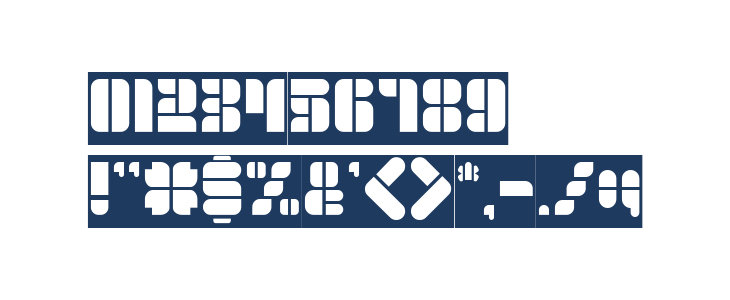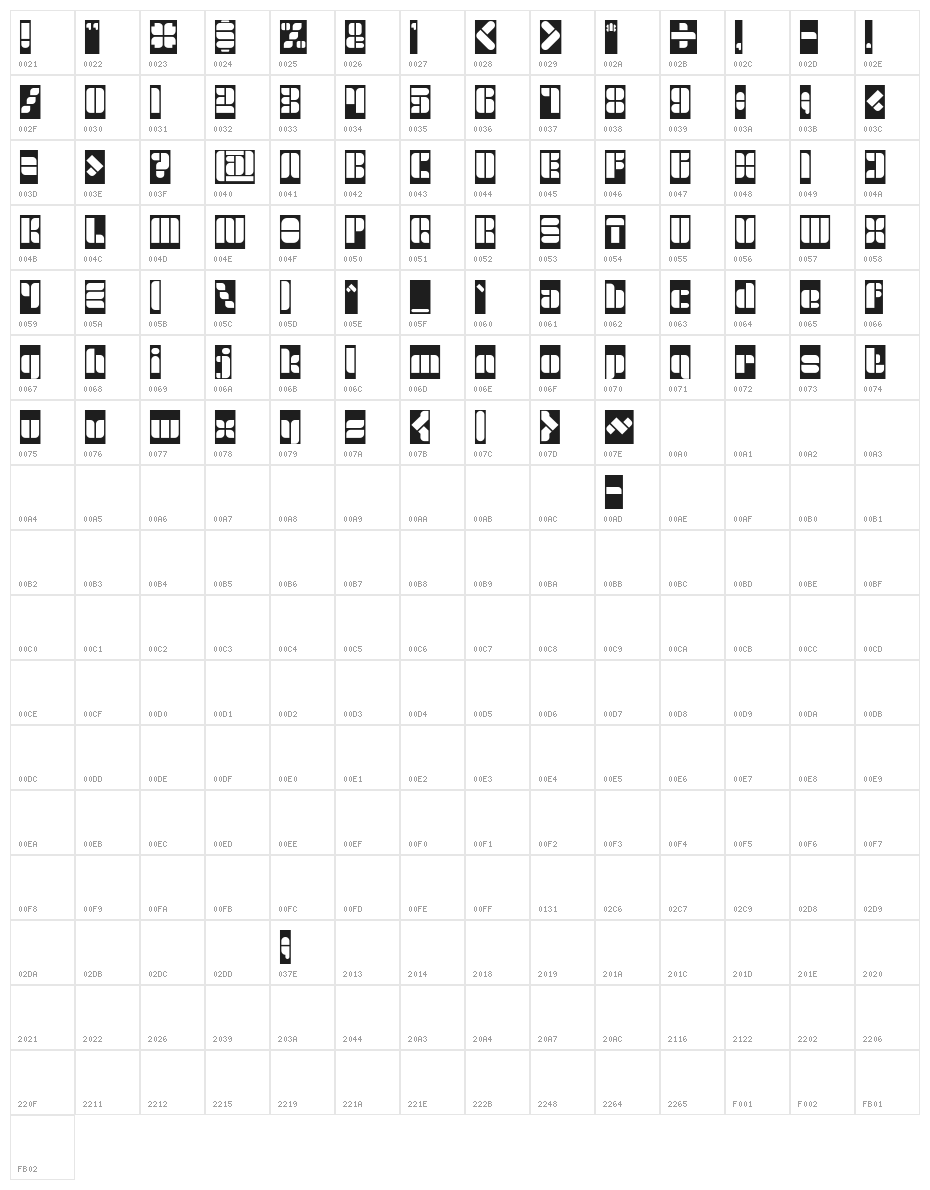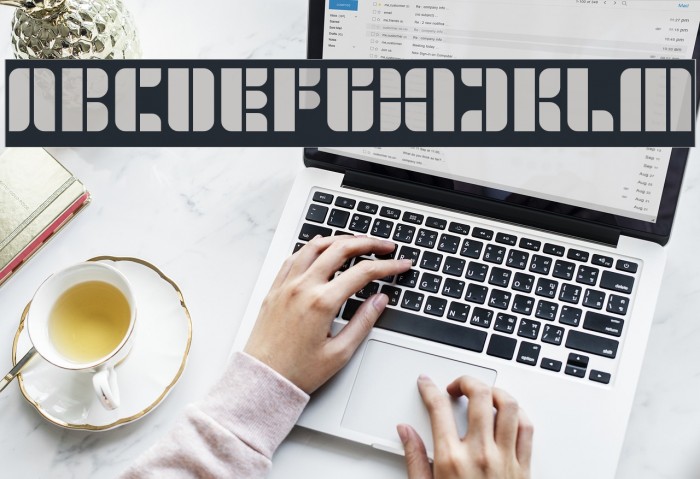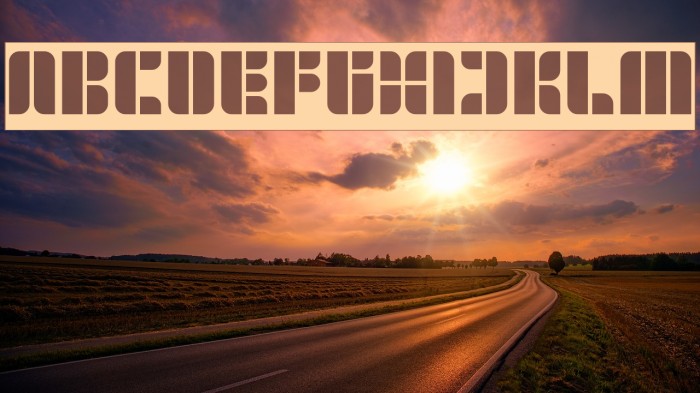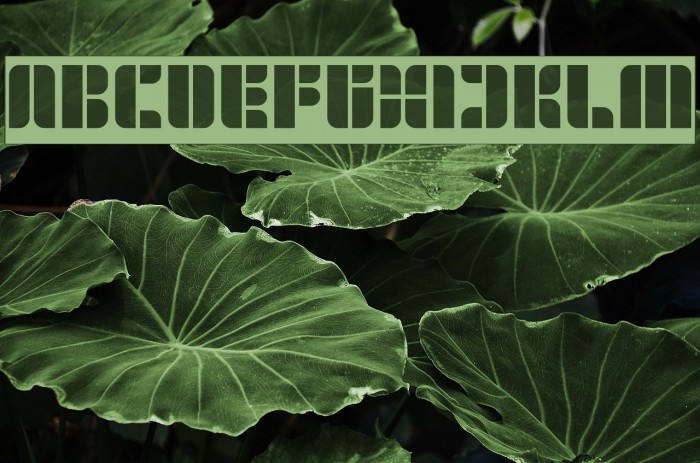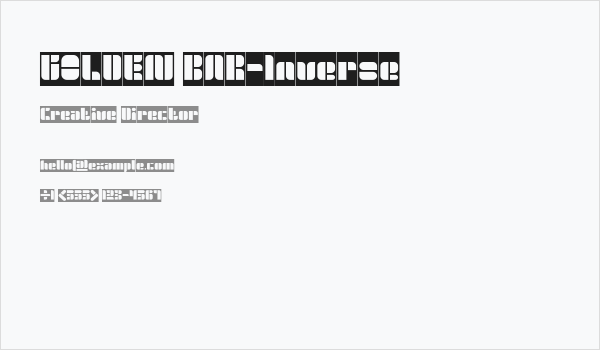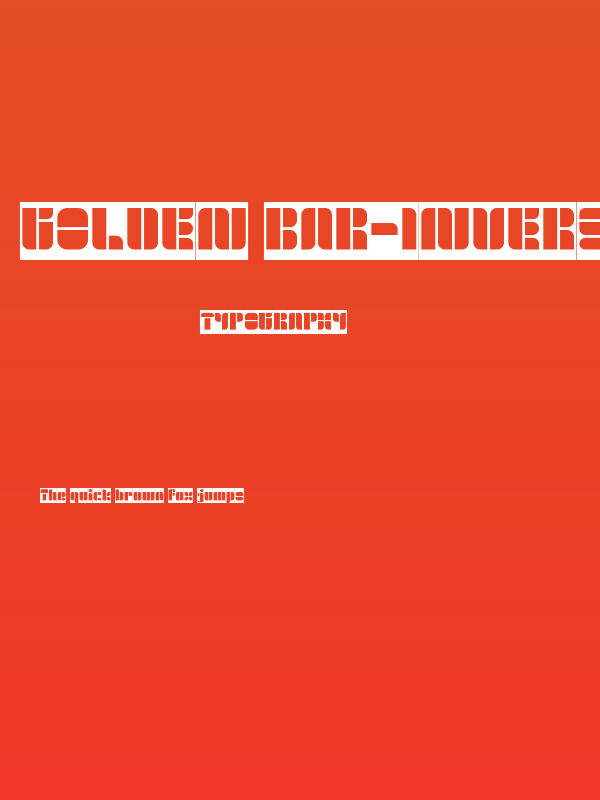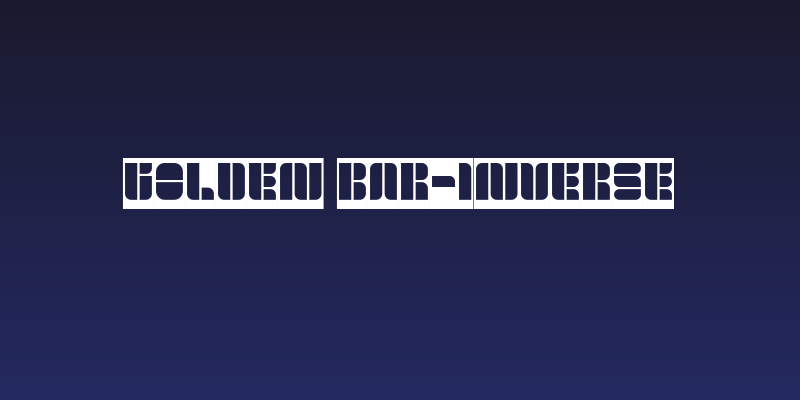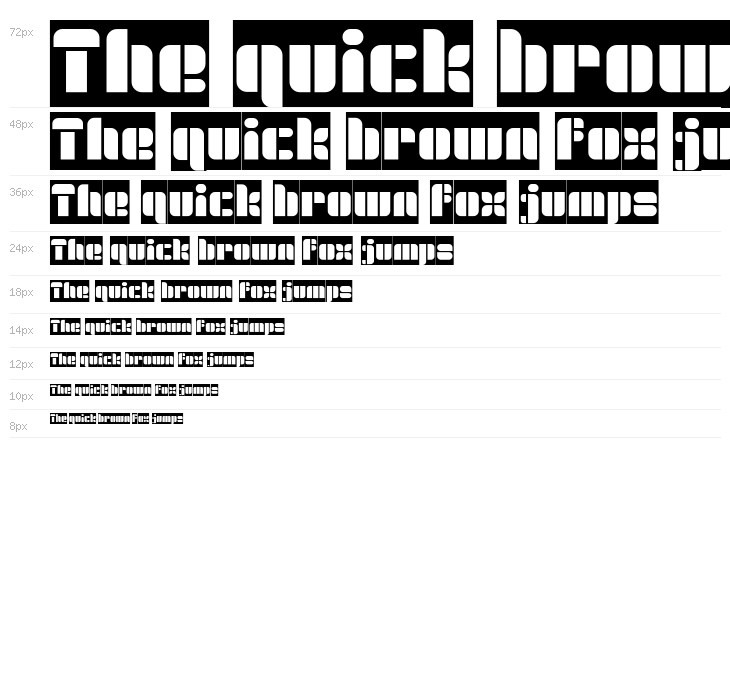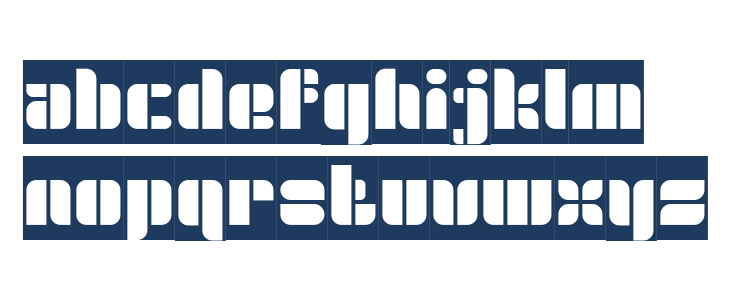
GOLDEN BAR-Inverse Font
GOLDEN BAR-Inverse Description
This font features a bold, geometric design with a modern and futuristic aesthetic. Each character is constructed using thick, block-like shapes that create a stencil-like appearance. The letters and numbers are highly stylized, with a consistent use of negative space that adds to the font's unique look. The overall design is symmetrical and balanced, making it visually striking and ideal for attention-grabbing displays. The font's distinctive style is both artistic and functional, suitable for a variety of creative applications.
| Proposed Projects | Ideal for branding, posters, album covers, and any project requiring a bold, modern aesthetic. |